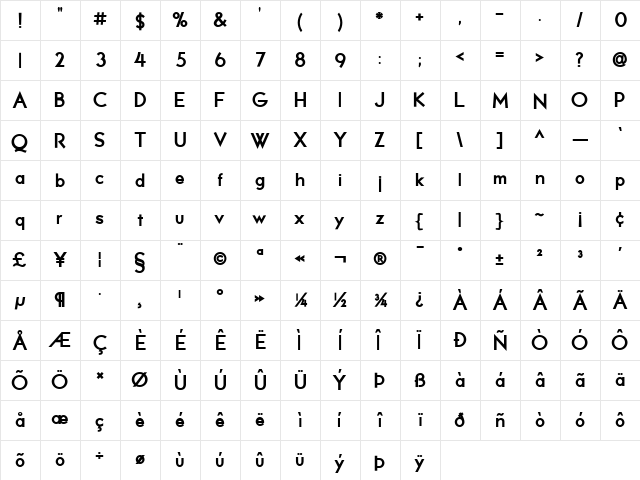
LionelTextDiesel Regular
Design Context for LionelTextDiesel Typeface
LionelTextDiesel offers clean, dependable letterforms without strong stylistic allegiance, making it a practical choice for designers who need flexibility.